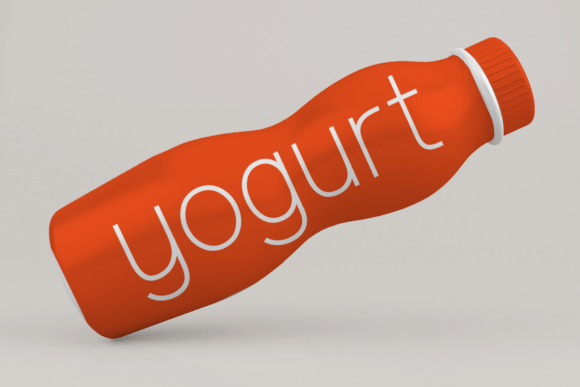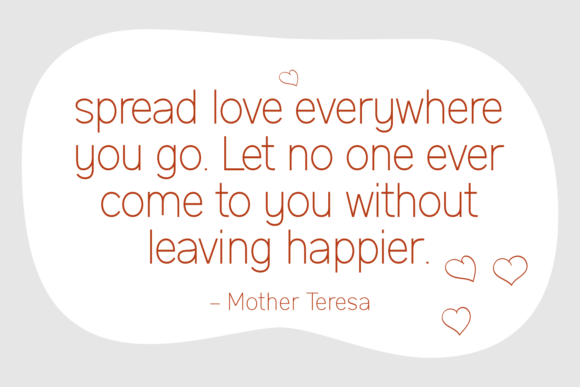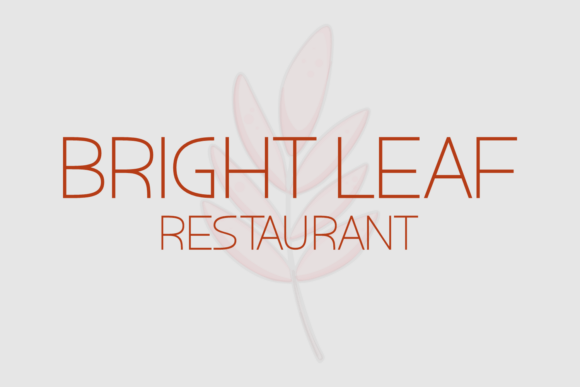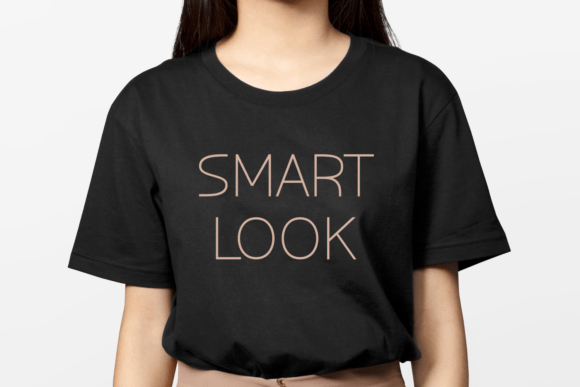
Introduction to Nothing Broken Font
Introducing Nothing Broken is a new Sans Serif font.
Displaying a minimalist yet engaging aesthetic, this clean font is a perfect choice for a range of different purposes, especially where a cultured and elegant style is desired Its simplicity makes it an ideal school or childrenโs font, while its polished essence lets it stand out in books or magazines.